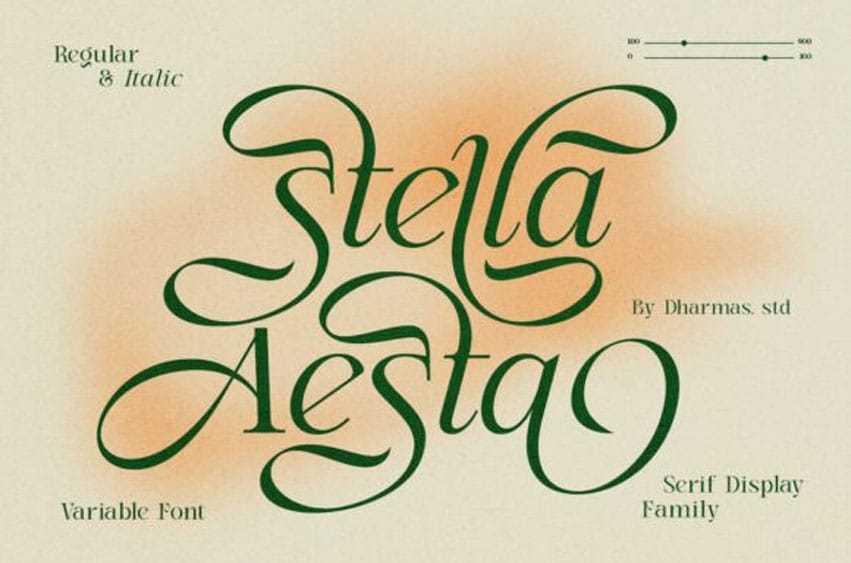
Stella Aesta Font Butterfly Swash Display Family. Stella Aesta is an elegant serif font family featuring beautiful swashes that resemble butterfly wings.
With its refined curves and delicate details, this font family is perfect for designs that need a timeless and enchanting feel.